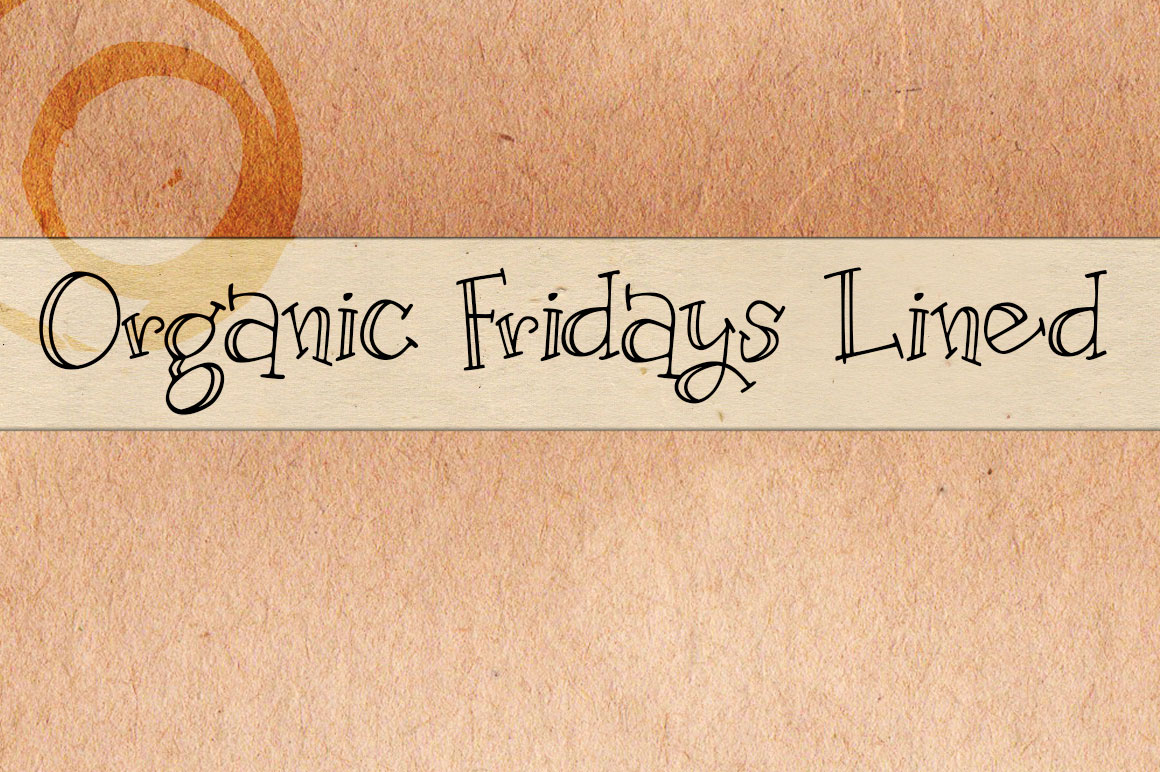
Organic Fridays Lined Font
About Organic Fridays Lined Font
Organic Fridays Lined is a crafty font full of serifs and personality. This lined version is perfect for extra emphasis and flair. Great for cards and scrap-booking!